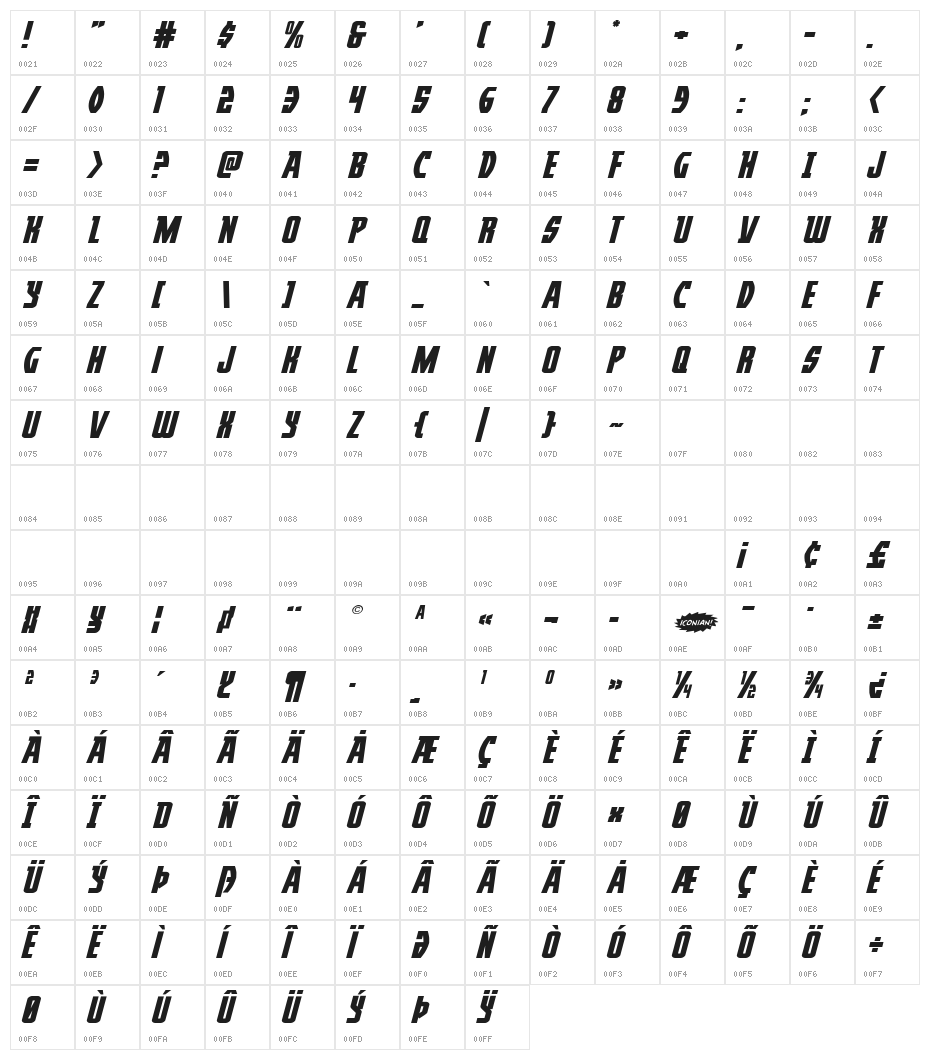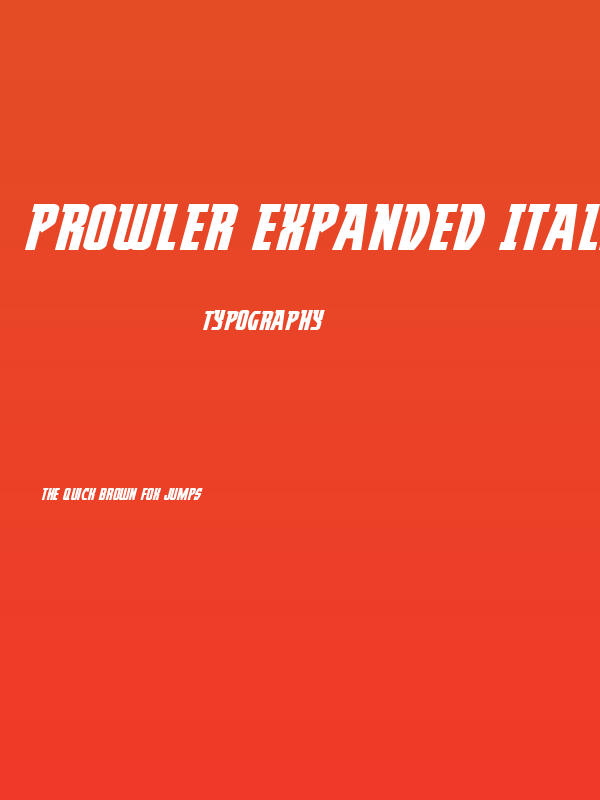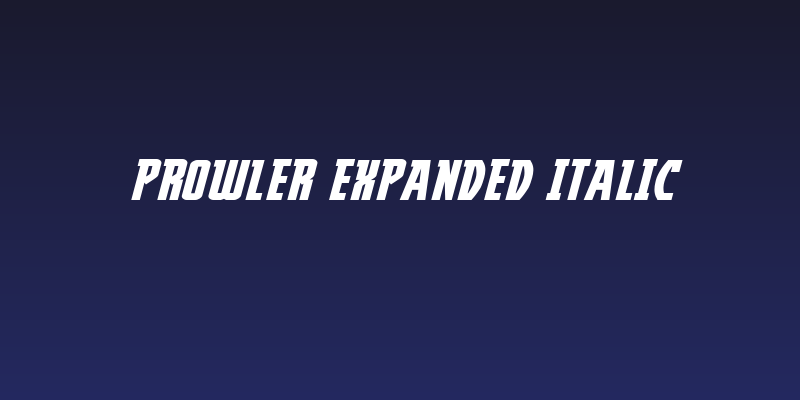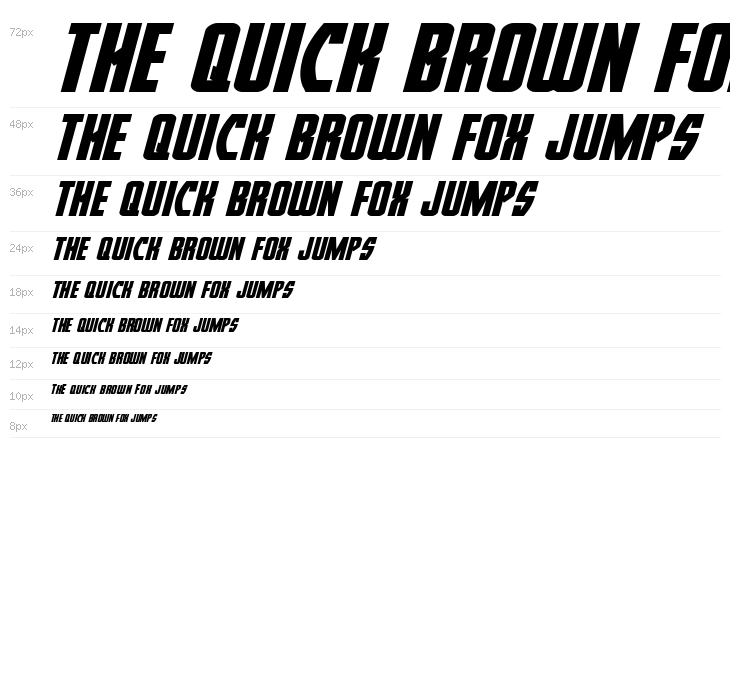
Prowler Expanded Italic Font
Prowler Expanded Italic Description
This font features a bold and dynamic style with an italic slant, giving it a sense of movement and energy. The characters are expanded, providing a wide stance that enhances readability while maintaining a strong visual impact. The angular and sharp edges of the letters contribute to a modern and assertive appearance, making it suitable for attention-grabbing designs. The uniform stroke width across characters ensures consistency, while the expanded width offers a unique and striking presence. This font is ideal for projects that require a bold statement and a contemporary feel.
| Proposed Projects | Ideal for headlines, posters, branding, and advertising where a strong visual impact is needed. |